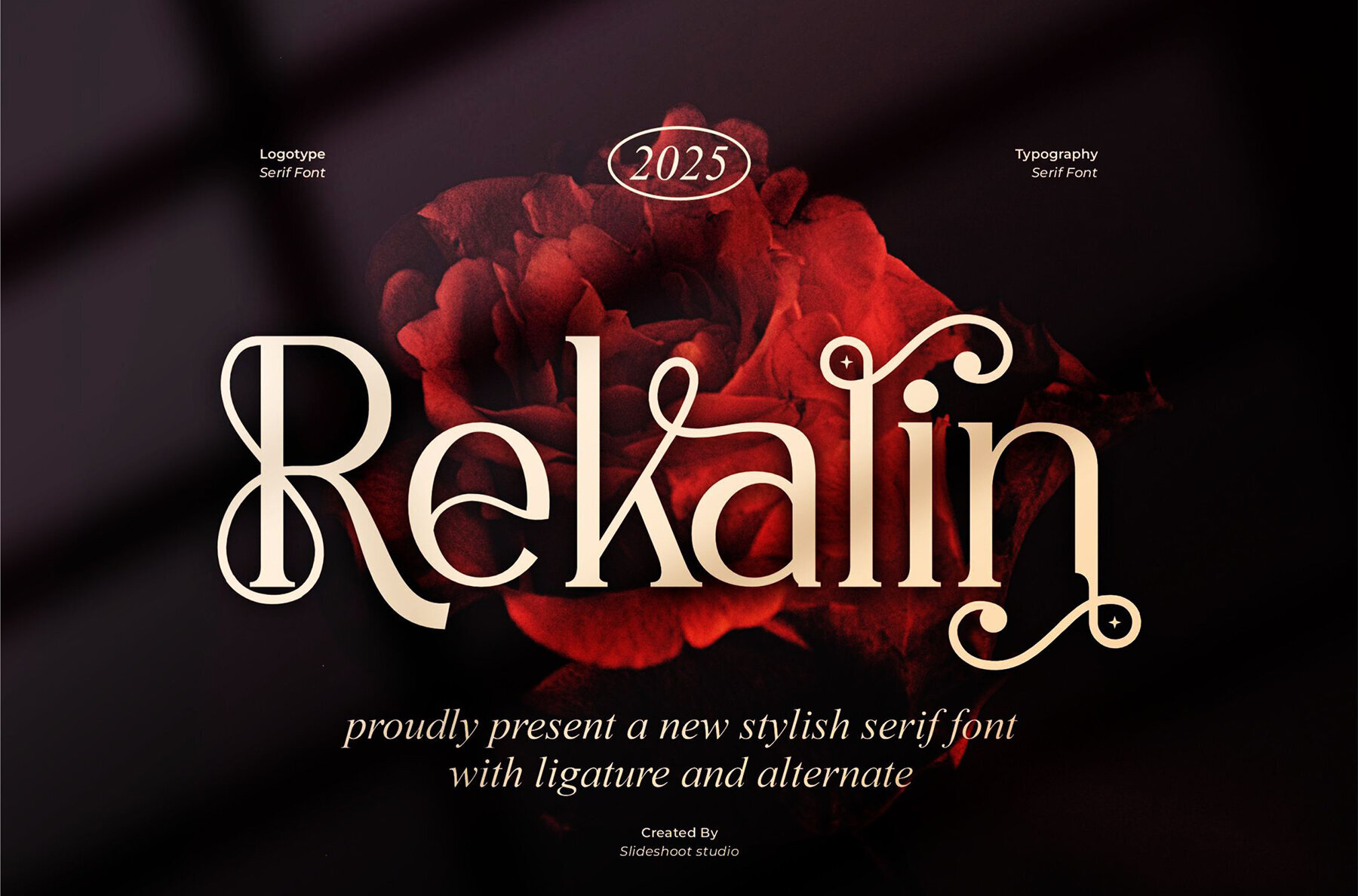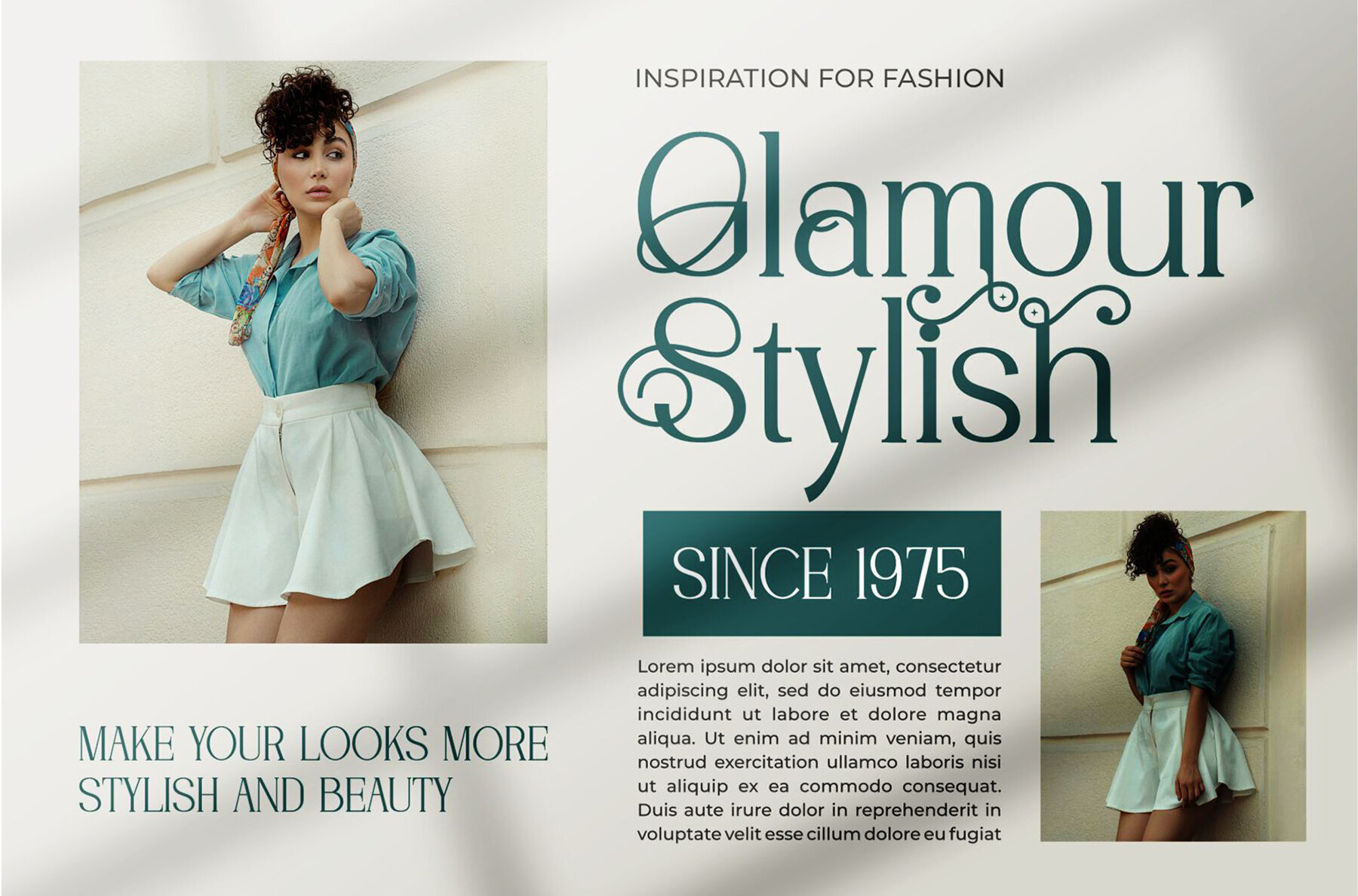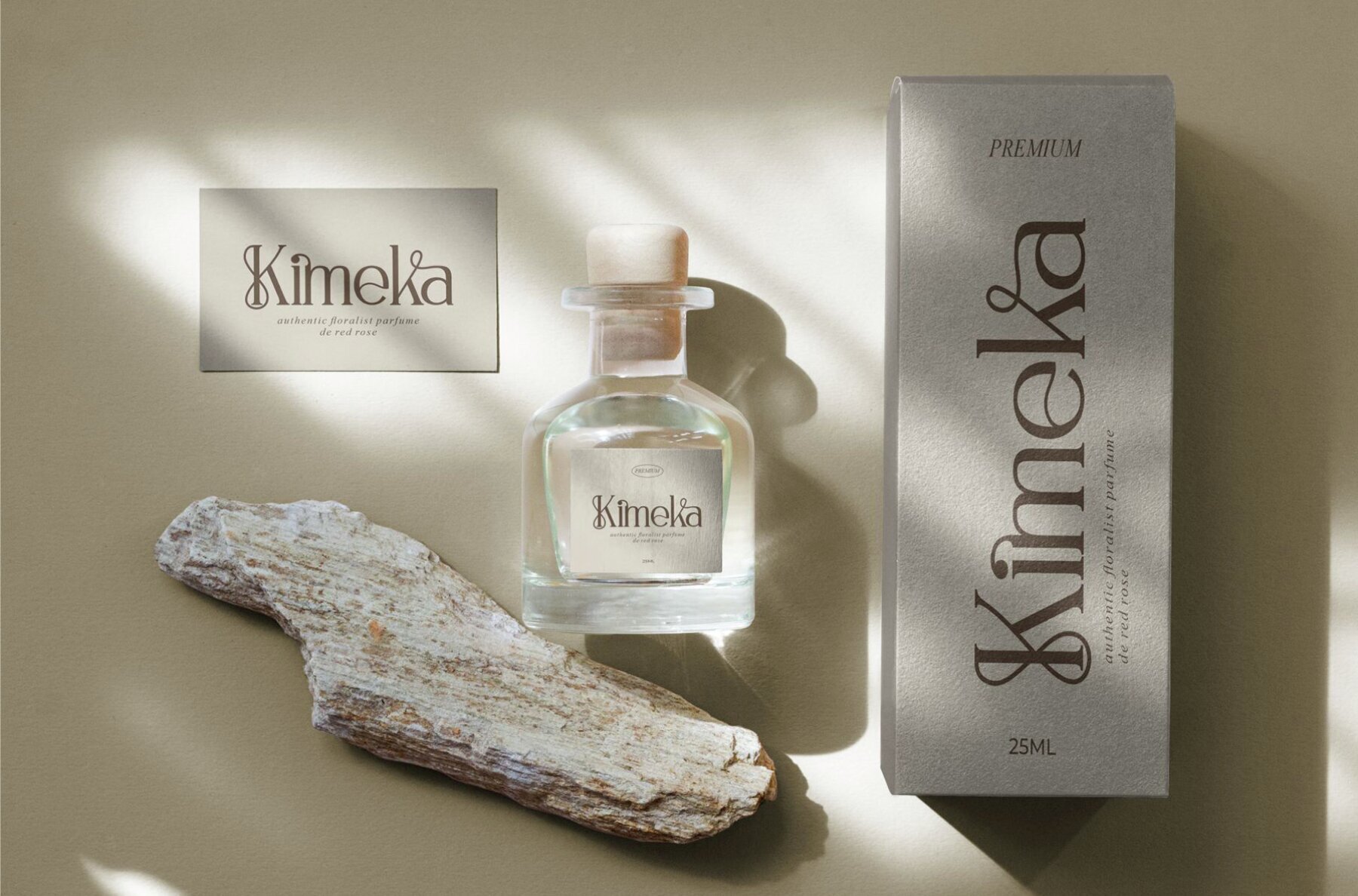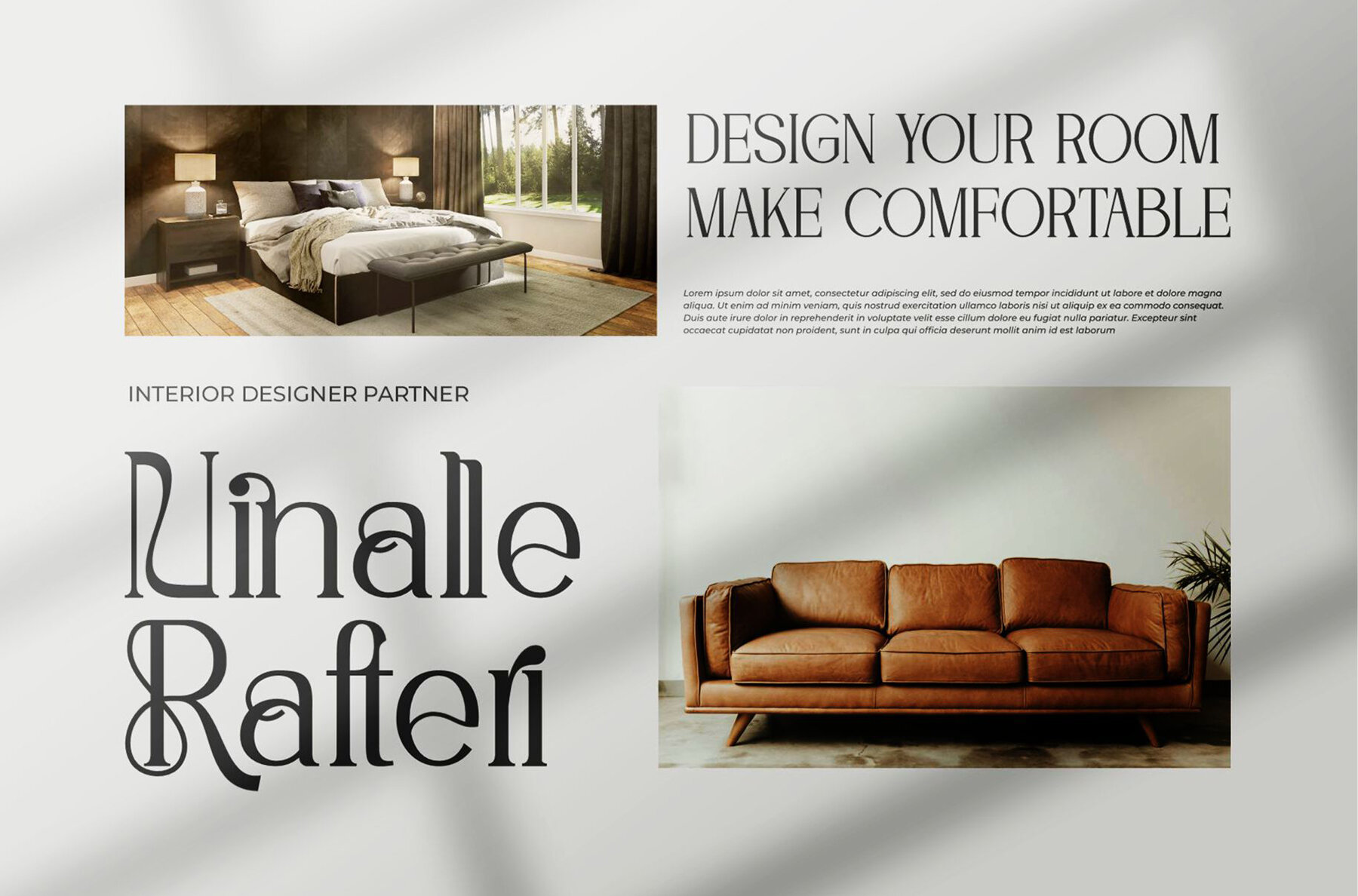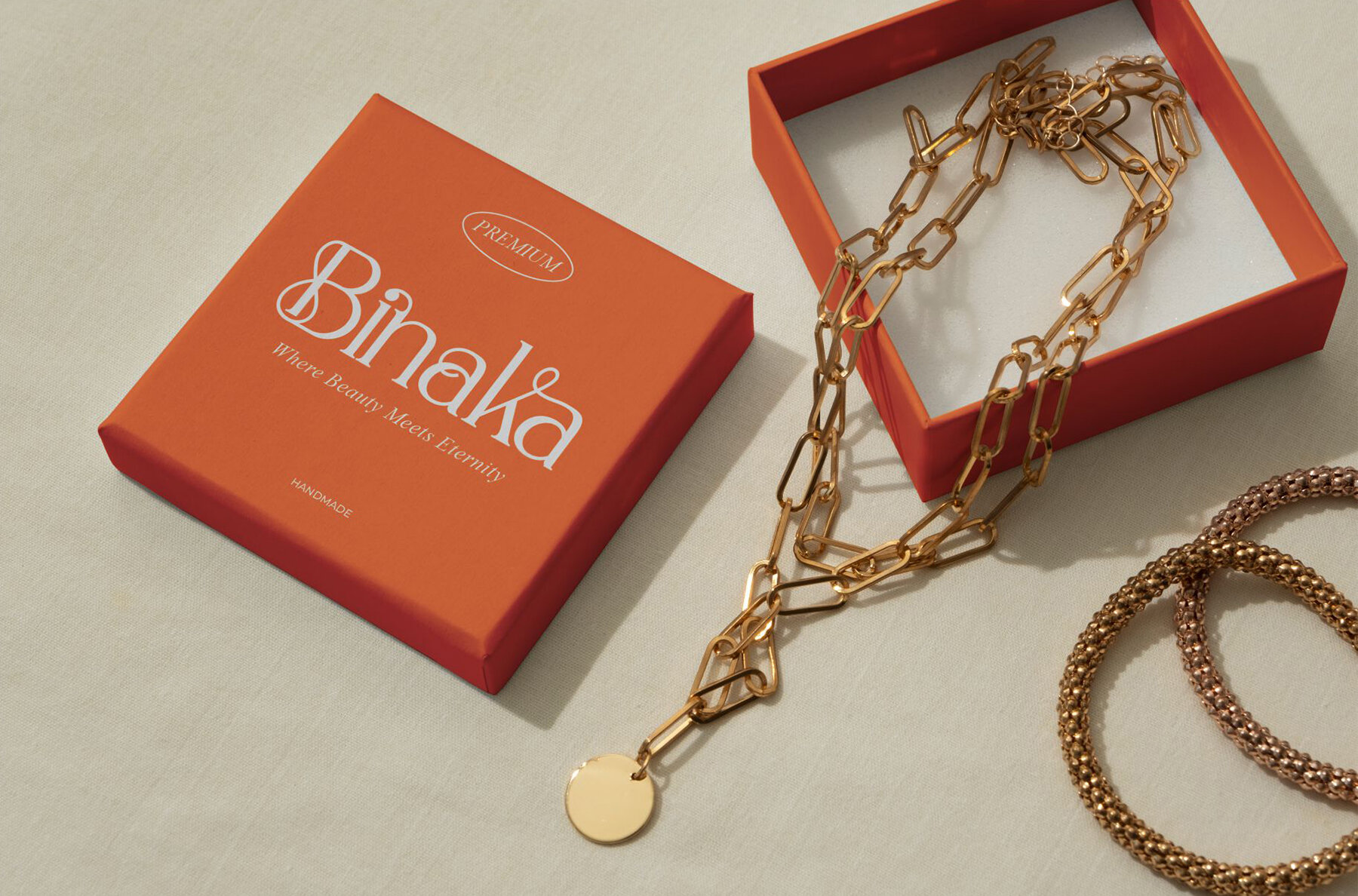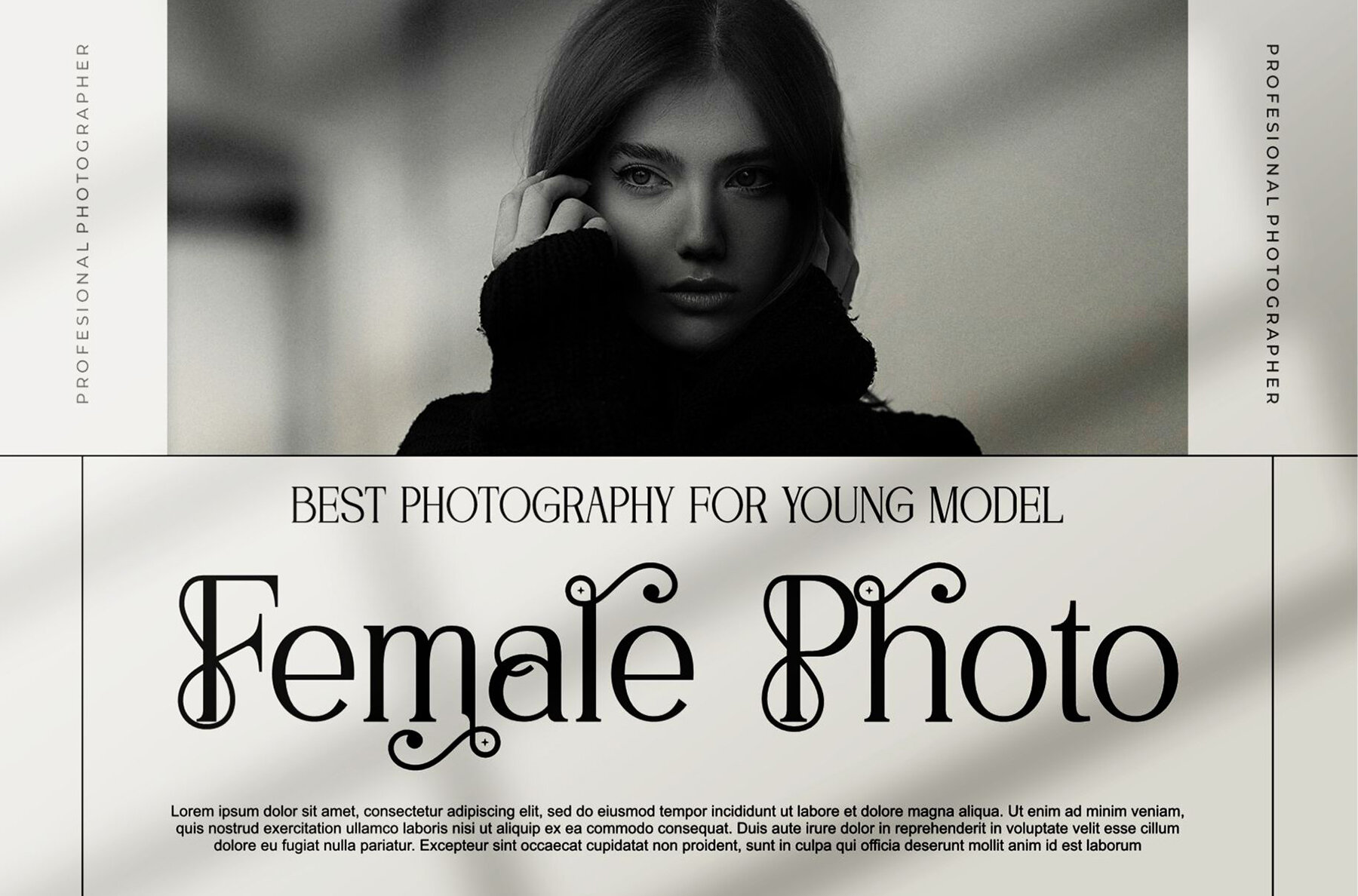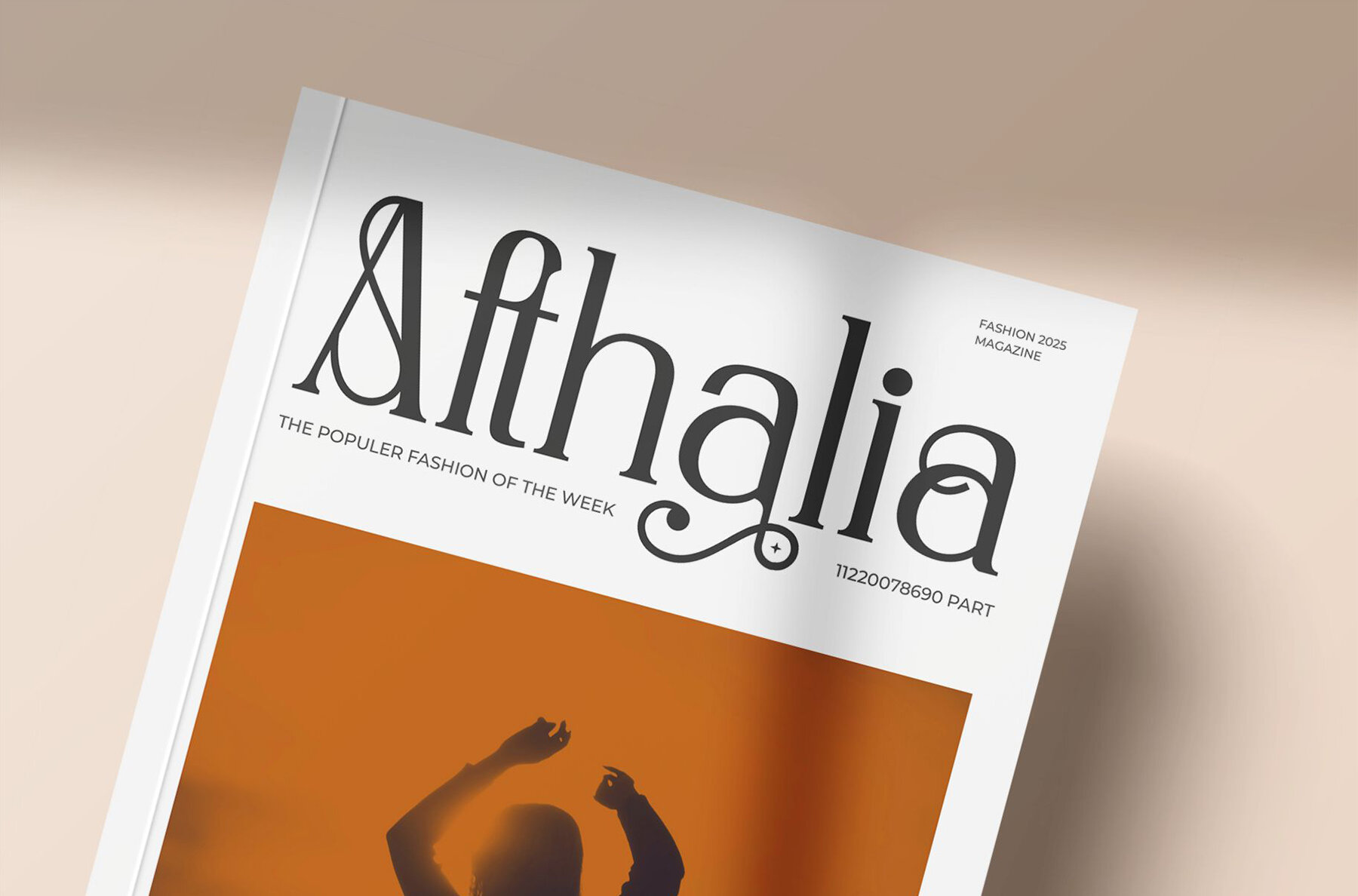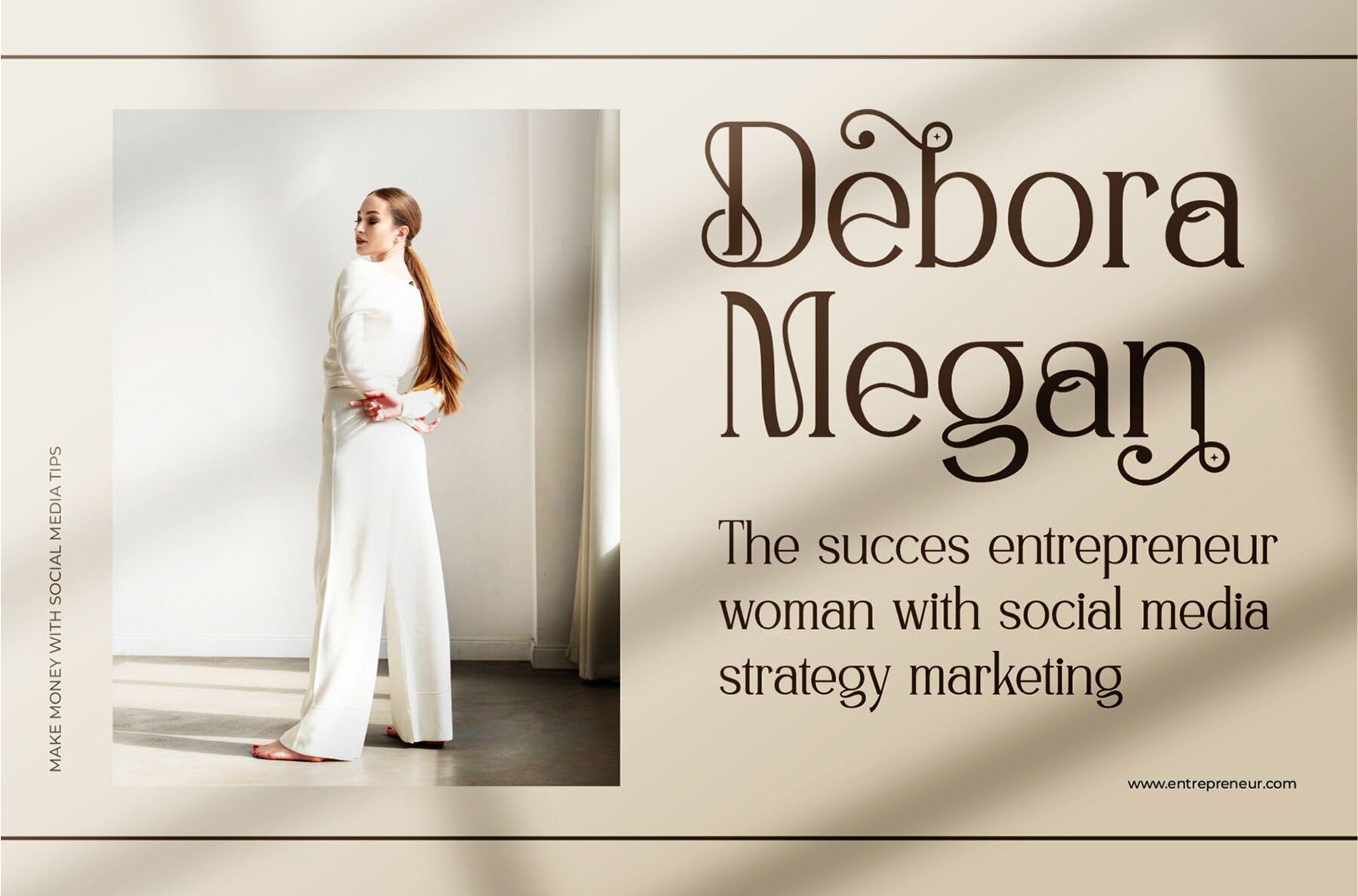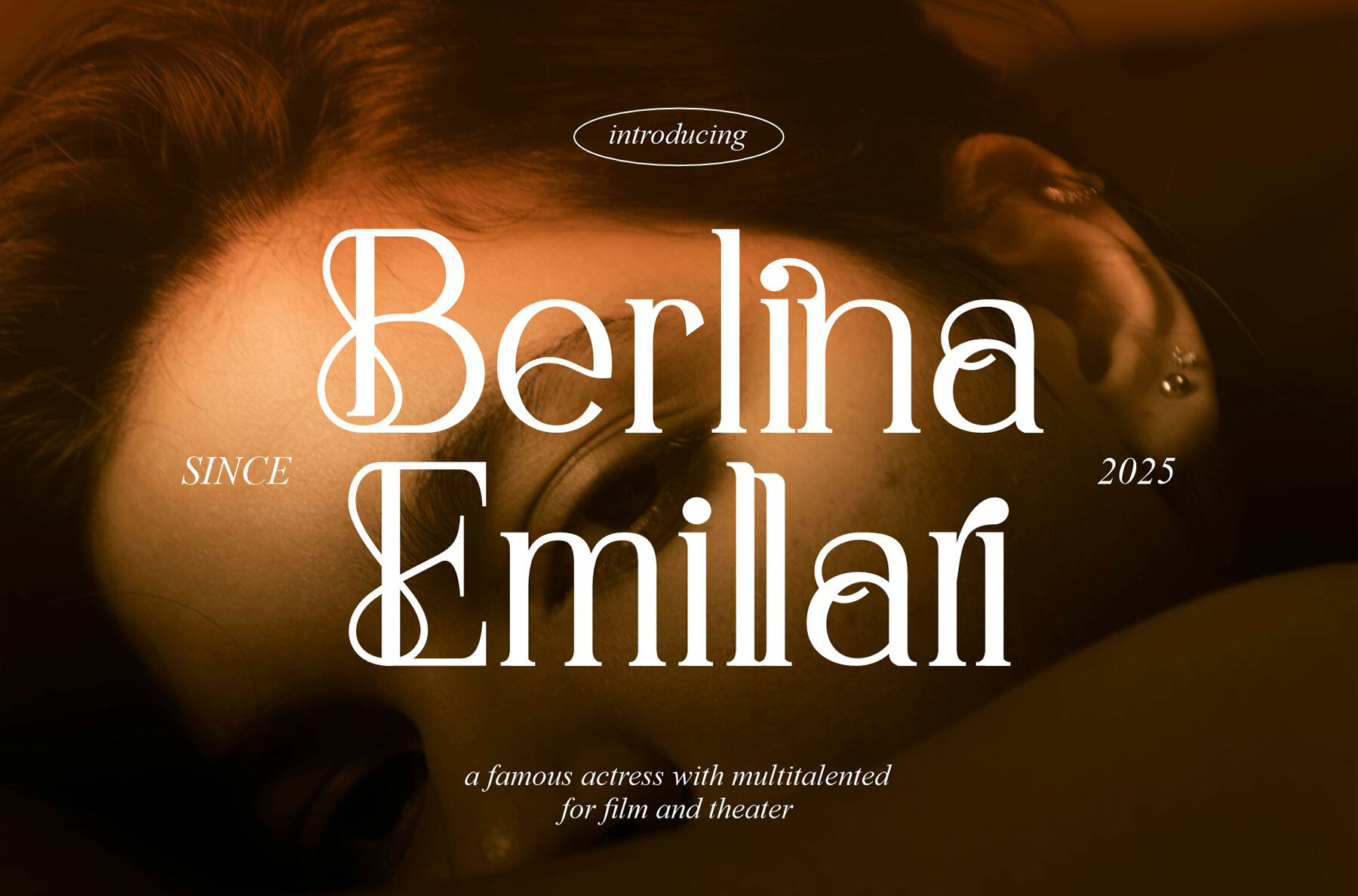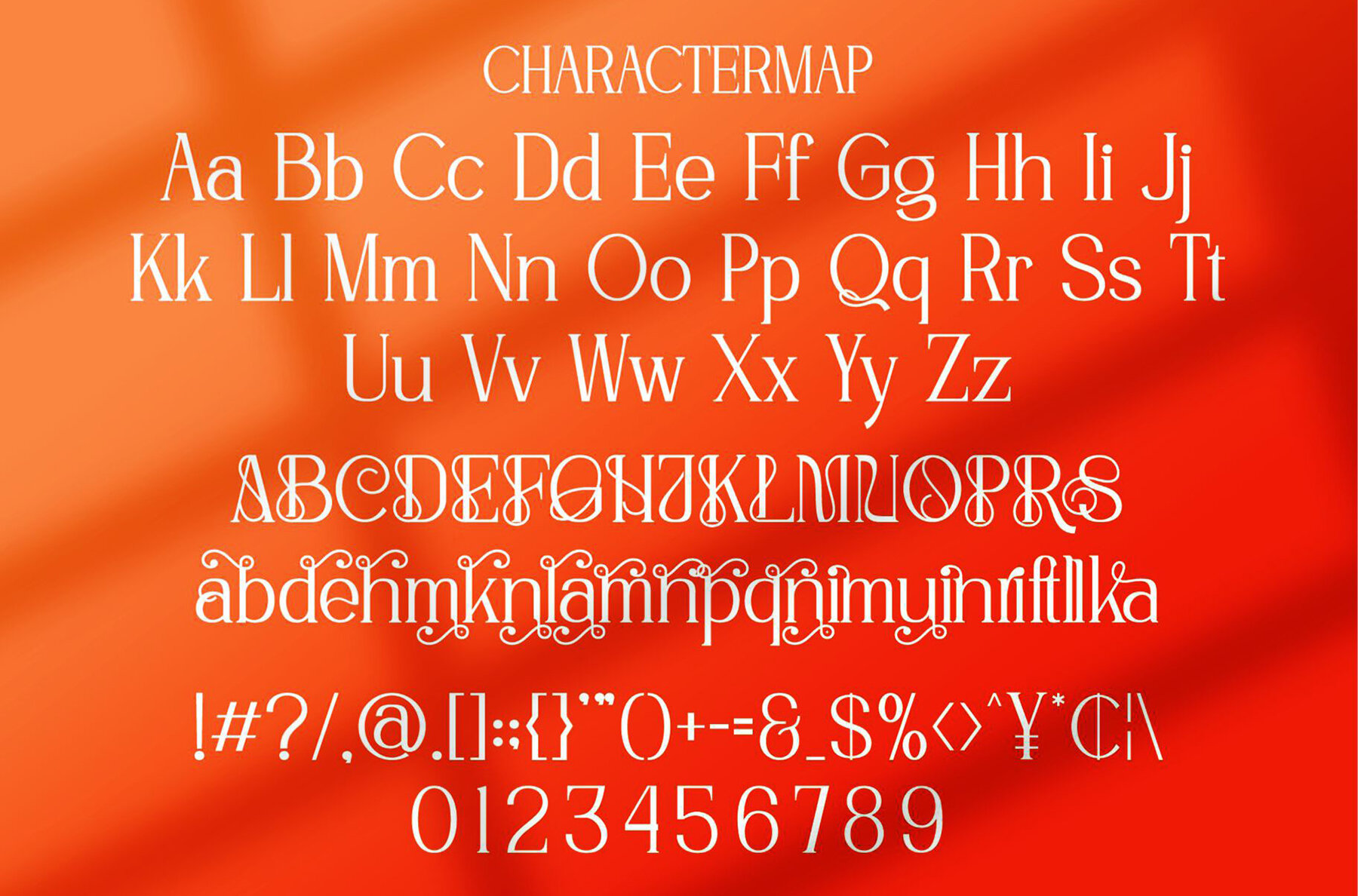
Rekalin Font
Rekalin
Experience the elegance of Rekalin, a modern serif font that exudes trendiness and style. Its unique character makes it an ideal choice for a variety of design projects, from invitation cards and company logos to movie titles and brand names. Rekalin effortlessly combines sophistication with creativity, ensuring your designs stand out with class.Rekalin Serif Font